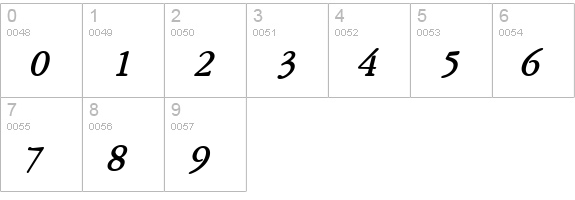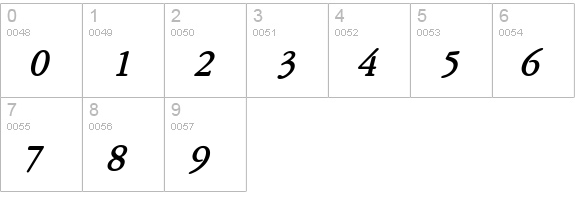
Amery BoldItalic font is a sleek and modern typeface that exudes sophistication and elegance. With its bold yet stylish italic design, this font is perfect for creating eye-catching headlines, titles, and branding materials. The unique combination of thick strokes and slanted letters gives Amery BoldItalic a contemporary and dynamic look that is sure to make a statement. What sets Amery BoldItalic font apart is not only its striking appearance but also its versatility. Whether used in print or digital projects, this font will add a touch of class and professionalism to any design. Its bold and italic nature makes it ideal for emphasizing key points and creating visual interest. The best part? Amery BoldItalic font is available for free download at FontsMarket.com. This means you can easily access and use this fantastic font in your projects without any cost. So why wait? Give your designs a bold and stylish edge with Amery BoldItalic font today.